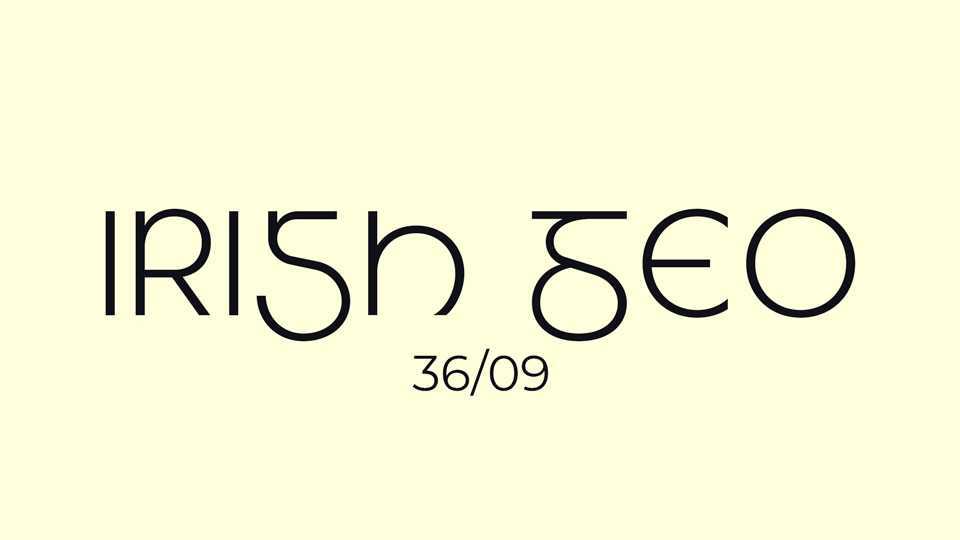
Irish Geo Font › Fontesk – Download Grátis
Download Irish Geo font, a display typeface, inspired by the Irish lettering style. The goal with this design was to come up with a set of geometric capital letters that have a strong Irish-like appearance, taking inspiration from a wide variety of historic Irish typefaces.
Designer: Justin Penner